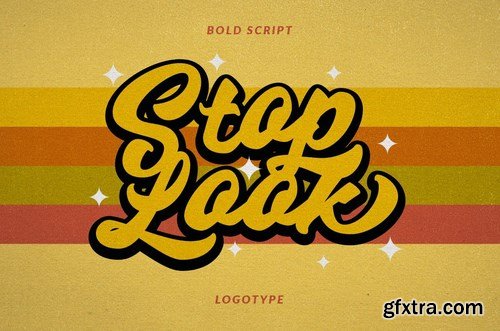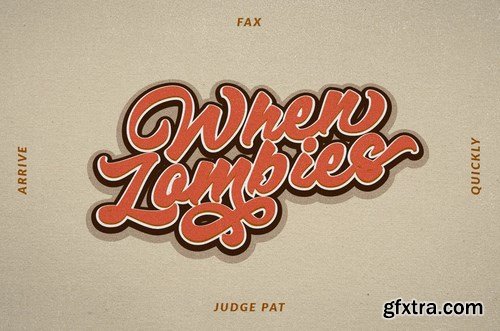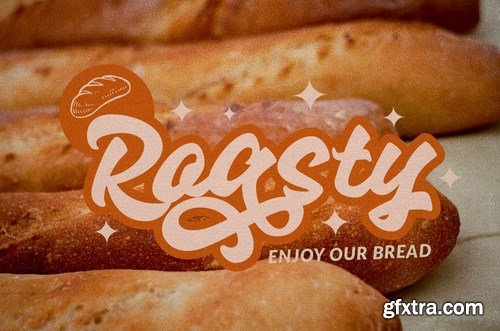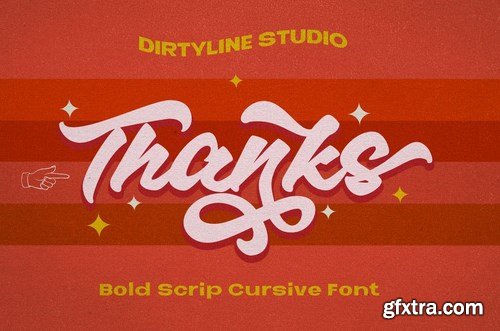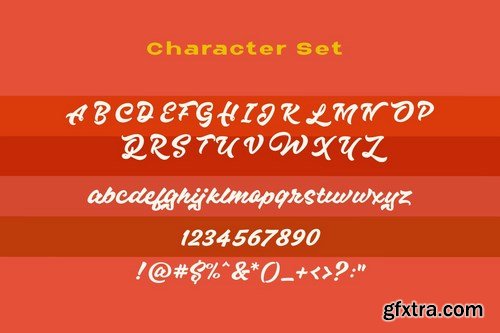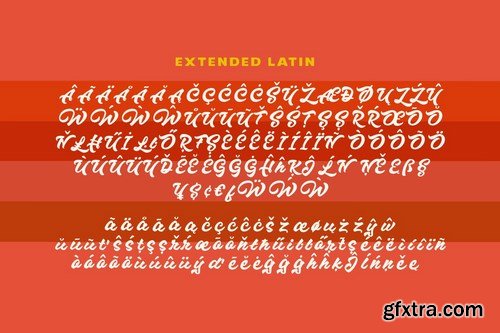
Hazzard Script Inspired by Retro style and combination with Hand Lettering style. I'm made with personality touch every single curve. I hope this can make inspire you from your work. and a very bouncy baseline It has a perfectly paired complimentary marker font , and a super handy set of bonus Swash. Ideal for logos, handwritten quotes, product packaging, header, poster, merchandise, social media & greeting cards.